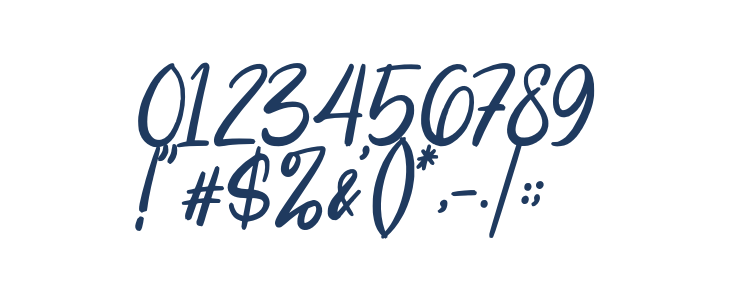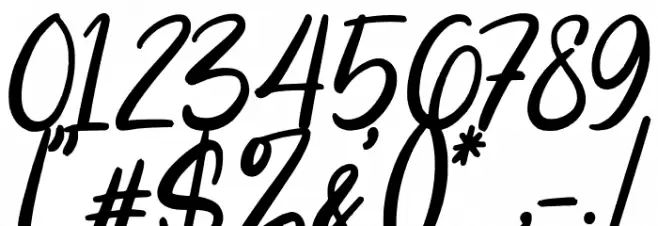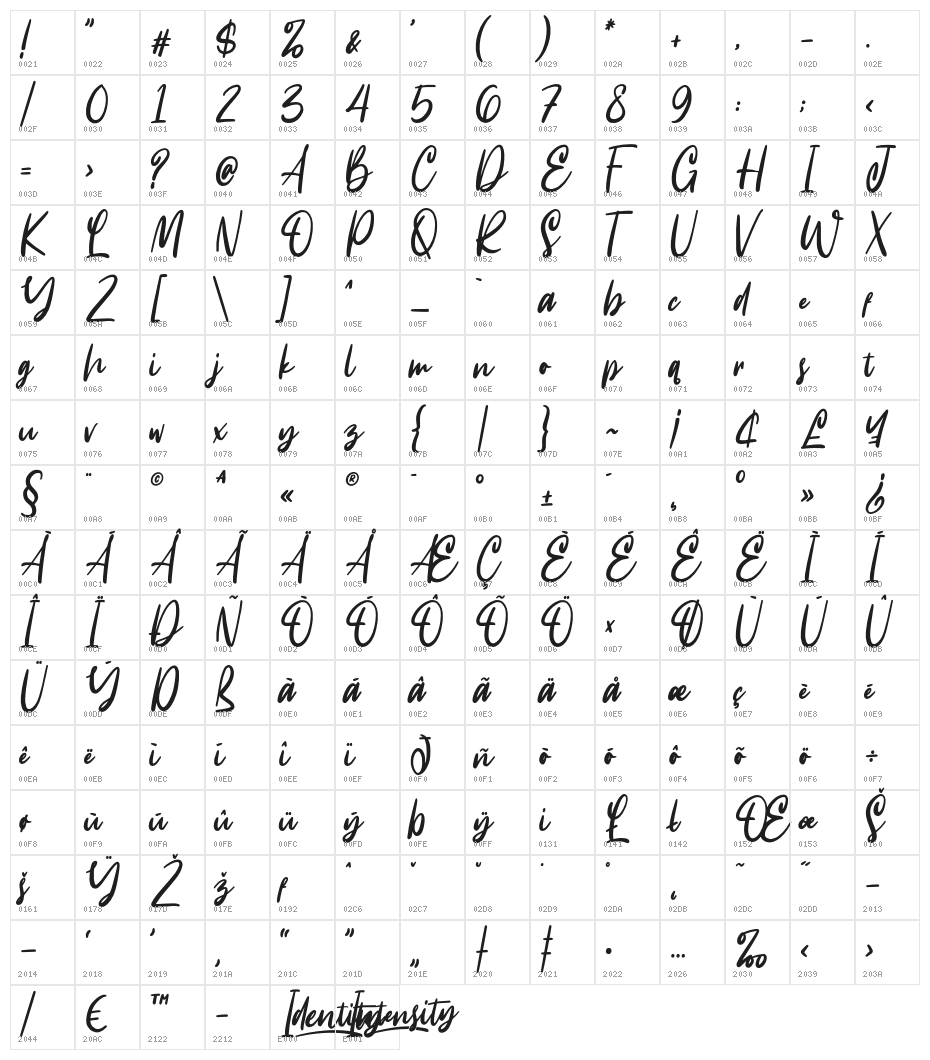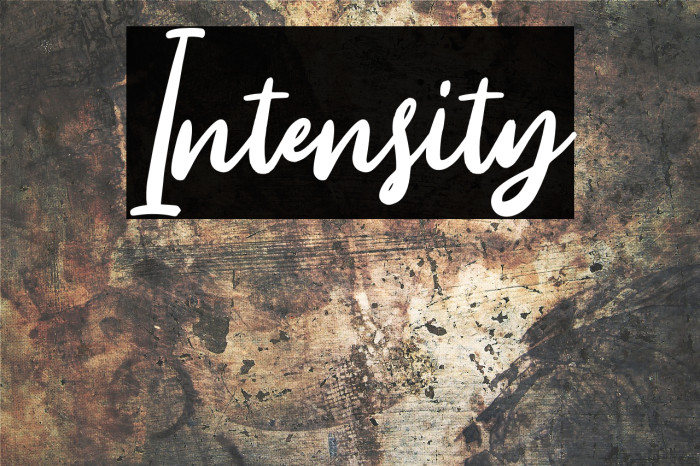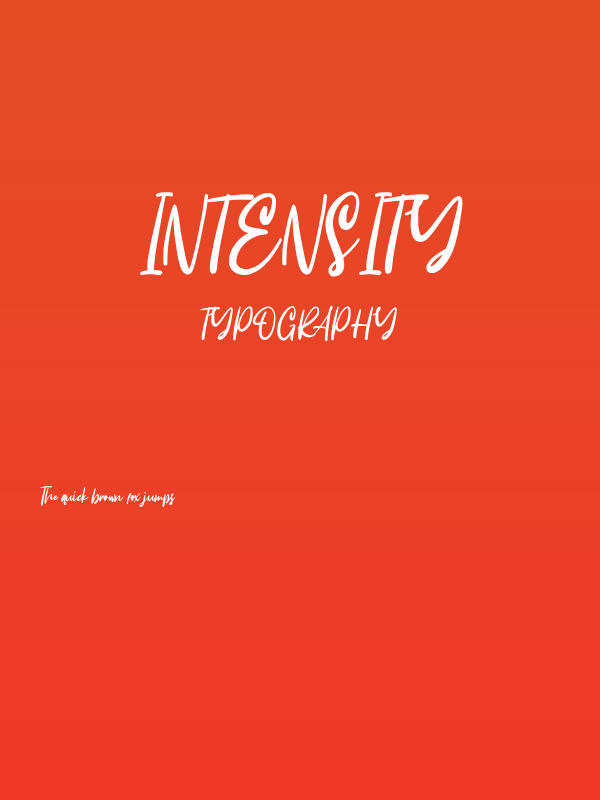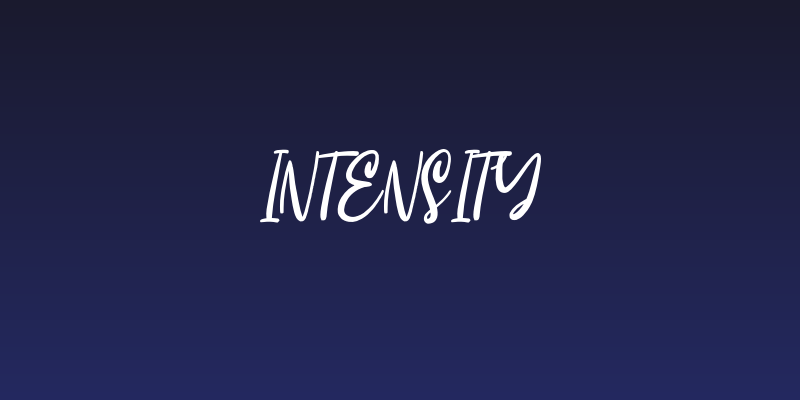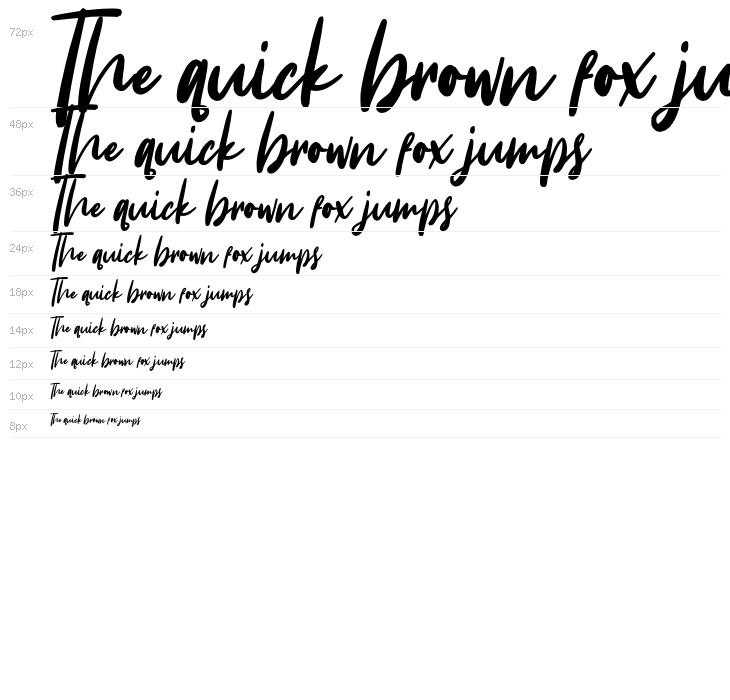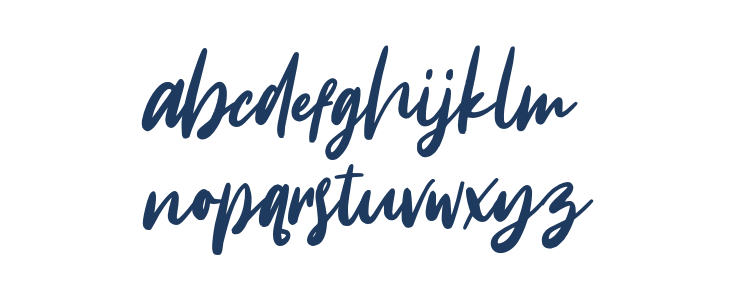
Intensity Font
Intensity Description
This font features a dynamic and energetic script style, characterized by its bold, flowing strokes and cursive letterforms. The uppercase letters are slightly more angular, adding a touch of modern flair, while the lowercase letters maintain a smooth, connected flow. The numerals are consistent with the overall style, offering a playful yet sophisticated look. Special characters are integrated seamlessly, enhancing the font's versatility. The font's lively appearance makes it ideal for projects that require a personal, handwritten touch.